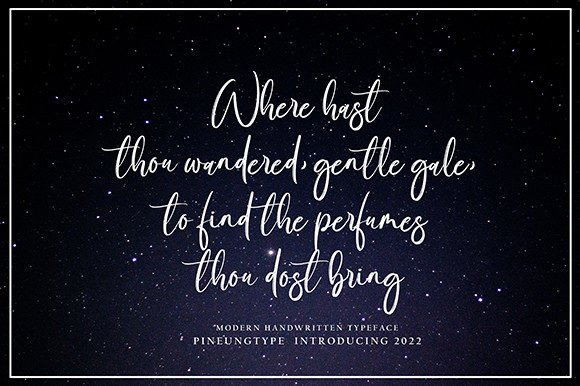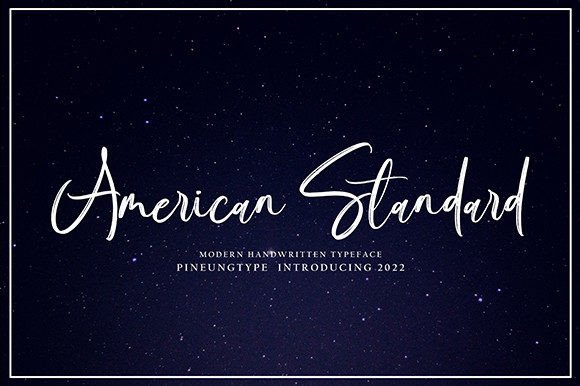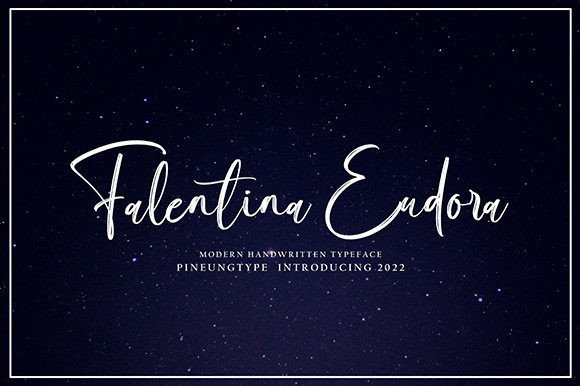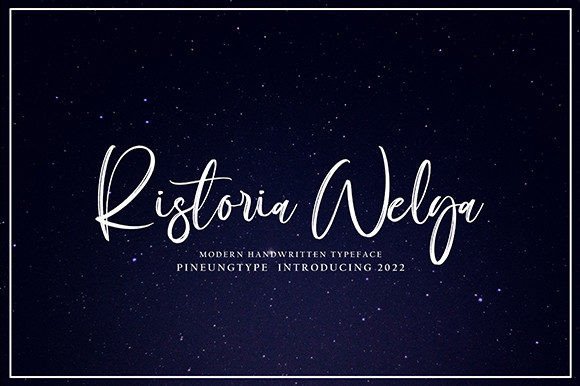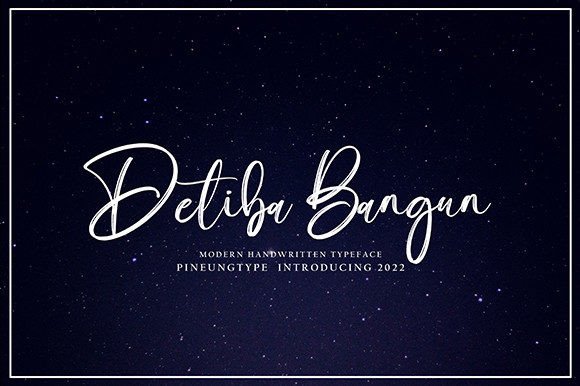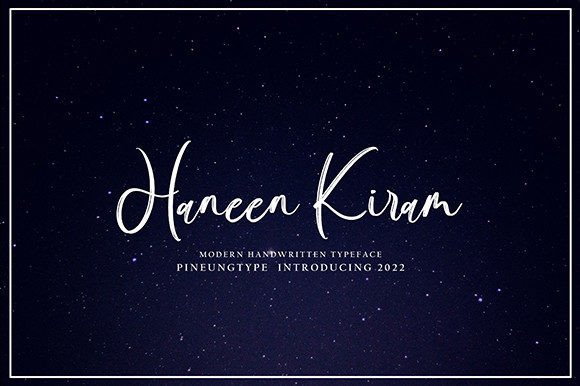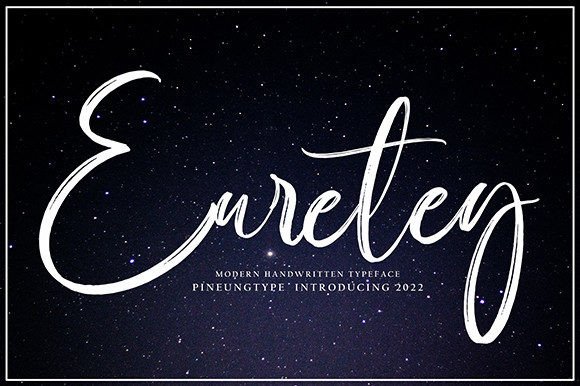
Euretey Font: The Fresh and Cursive Script Font You Need for Your Design Projects
In the world of typography, fonts play a crucial role in making or breaking a design. A perfect font can elevate your project from ordinary to extraordinary. If you’re a designer or crafter looking for a fresh and cursive script font to add a personal touch to your work, look no further than Euretey Font. In this article, we’ll dive into the features and benefits of Euretey Font and explore how it can be used in various design projects.
What is Euretey Font?
Euretey is a modern and elegant cursive script font that brings a new style to the world of typography. Its fresh and unique design makes it perfect for a wide range of projects, from quotes and logos to blog headers, posters, branding, letters, invitations, and stationery. With its flowing lines and cursive connections, Euretey Font adds a touch of sophistication and personality to any design.
Key Features of Euretey Font
So, what makes Euretey Font stand out from other script fonts? Here are some of its key features:
- Fresh and Unique Design: Euretey Font boasts a modern and elegant design that sets it apart from traditional script fonts.
- Cursive Connections: The font features beautiful cursive connections that add a touch of sophistication to any design.
- Highly Versatile: Euretey Font can be used in a wide range of projects, from digital designs to print materials.
- Easy to Read: Despite its cursive nature, Euretey Font is easy to read, making it perfect for body text and headings.
How to Use Euretey Font in Your Design Projects
Euretey Font is an incredibly versatile font that can be used in various design projects. Here are some ideas to get you started:
- Quotes and Inspirational Messages: Use Euretey Font to create beautiful quote posters, social media graphics, and inspirational messages.
- Logo Design: Create stunning logos for your clients or business using Euretey Font.
- Blog Headers and Titles: Add a personal touch to your blog headers and titles with Euretey Font.
- Posters and Flyers: Use Euretey Font to create eye-catching posters and flyers for events, promotions, and more.
- Branding and Packaging: Incorporate Euretey Font into your branding and packaging designs to add a touch of elegance.
- Invitations and Stationery: Create beautiful invitations, stationery, and greeting cards using Euretey Font.
Tips for Getting the Most Out of Euretey Font
To make the most of Euretey Font, here are some tips to keep in mind:
- Experiment with Font Sizes: Play around with different font sizes to create visual hierarchy and emphasis.
- Pair with Other Fonts: Pair Euretey Font with other fonts to create a unique and interesting contrast.
- Use in Combination with Images: Combine Euretey Font with images to create stunning visual designs.
- Pay Attention to Line Spacing: Adjust line spacing to ensure your text is easy to read and visually appealing.
Euretey Font is a fresh and cursive script font that offers a new style to the world of typography. Its unique design, cursive connections, and high versatility make it perfect for a wide range of design projects. Whether you’re a designer or crafter, Euretey Font is an excellent addition to your font library. With its ease of use and flexibility, you can create stunning designs that showcase your creativity and style.